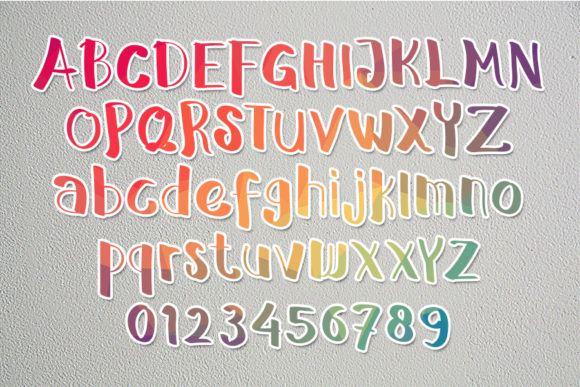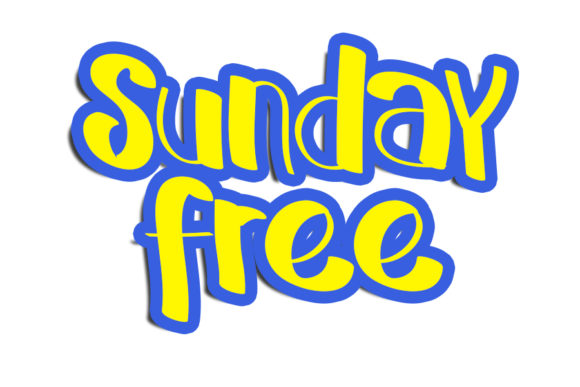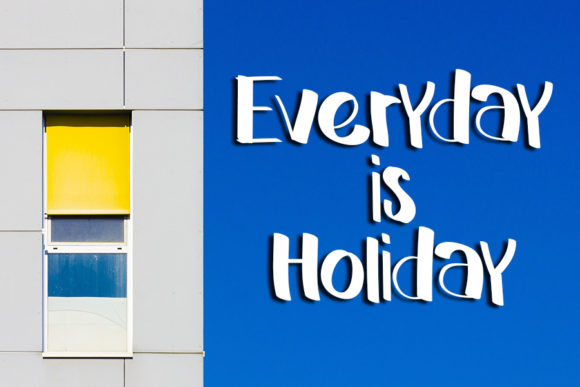
Introducing Brother Hood Font: The Sweet and Whimsical Display Font for All Your Creative Needs
Are you a designer, crafter, or digital artist looking for a font that can add a touch of sweetness and whimsy to your projects? Look no further than Brother Hood Font! This charming display font is perfect for a wide range of creative applications, from crafting and digital designing to presentations and greeting cards making.
What Makes Brother Hood Font So Special?
Brother Hood Font is a unique and eye-catching font that is sure to capture the attention of your audience. Its sweet and whimsical design makes it perfect for projects that require a playful and friendly touch. The font’s distinctive characters and charming aesthetic make it an excellent choice for a variety of creative projects, including:
- Crafting: Add a personal touch to your handmade crafts, such as DIY signs, cards, and gift tags.
- Digital designing: Use Brother Hood Font to create stunning social media graphics, blog headers, and website elements.
- Presentations: Make your presentations more engaging and fun with this delightful font.
- Greeting cards making: Create beautiful and heartfelt greeting cards for special occasions.
Key Features of Brother Hood Font
Brother Hood Font comes with a range of features that make it an excellent choice for designers and crafters. Some of its key features include:
- Unique and whimsical design
- Perfect for display and headline text
Tips for Using Brother Hood Font
To get the most out of Brother Hood Font, here are some tips to keep in mind:
- Use it for headlines and titles: Brother Hood Font is perfect for grabbing attention and making a statement.
- Pair it with other fonts: Experiment with pairing Brother Hood Font with other fonts to create a unique and visually appealing combination.
- Adjust the size and color: Play around with different sizes and colors to find the perfect look for your project.
- Use it consistently: Use Brother Hood Font consistently throughout your project to create a cohesive and professional look.
Benefits of Using Brother Hood Font
By using Brother Hood Font, you can enjoy a range of benefits, including:
- Improved visual appeal: Add a touch of sweetness and whimsy to your projects.
- Increased engagement: Capture the attention of your audience and keep them engaged.
- Professional look: Create a cohesive and professional look for your projects.
In conclusion, Brother Hood Font is a sweet and whimsical display font that is perfect for designers, crafters, and digital artists. Its unique and eye-catching design makes it an excellent choice for a wide range of creative projects. With its ease of use, compatibility, and range of features, Brother Hood Font is a must-have for anyone looking to add a touch of sweetness and whimsy to their projects.